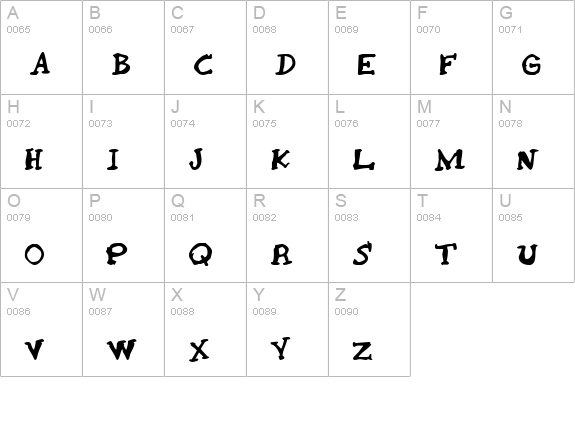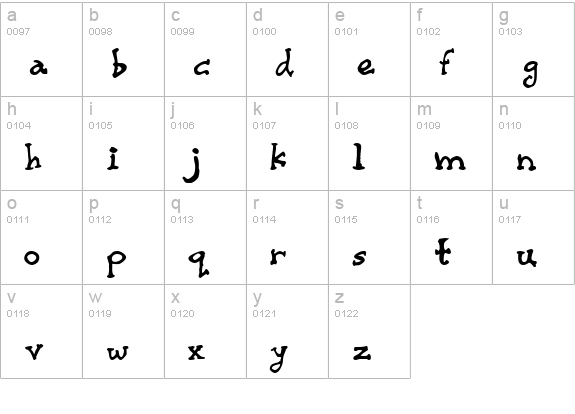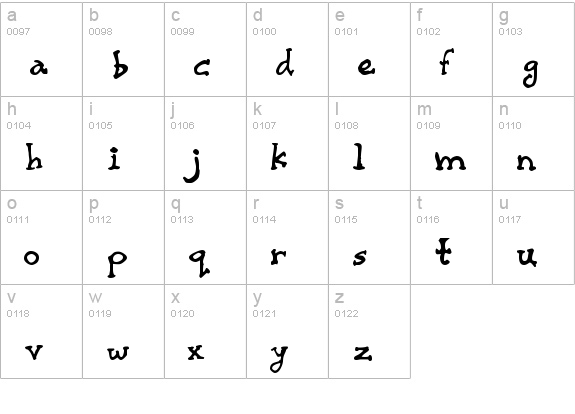
Chaiee Font Details
Chaiee font is a modern and stylish typeface that exudes elegance and sophistication. Its sleek lines and unique design make it perfect for a wide range of creative projects, from branding to editorial design. The font's versatility allows it to be used in both bold headlines and delicate body text, making it a must-have for any designer looking to make a statement. What's even better is that Chaiee font is completely free to download at FontsMarket.com. This means you can add this beautiful font to your collection without having to spend a dime. Don't miss out on this fantastic opportunity to elevate your designs with the stunning Chaiee font – download it now and start creating captivating visuals today!